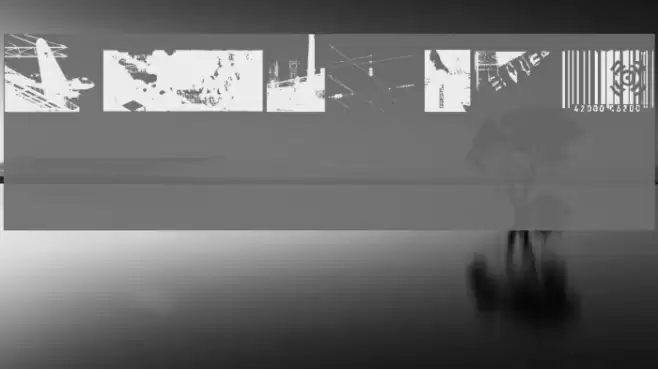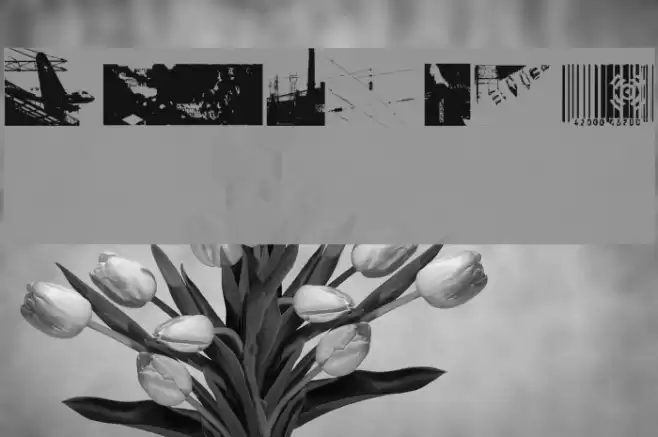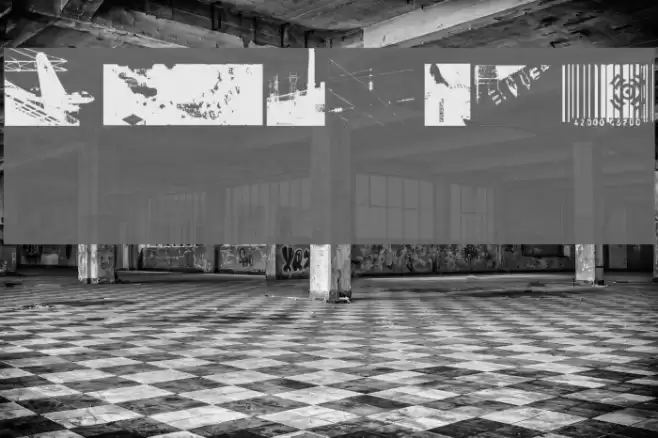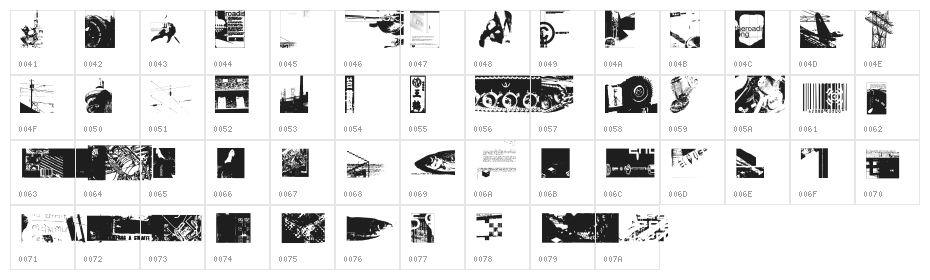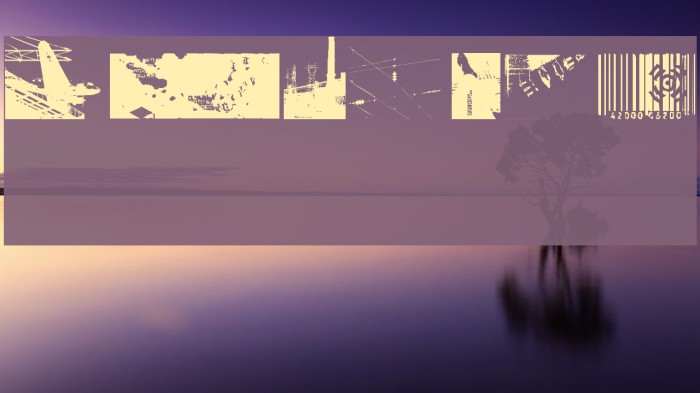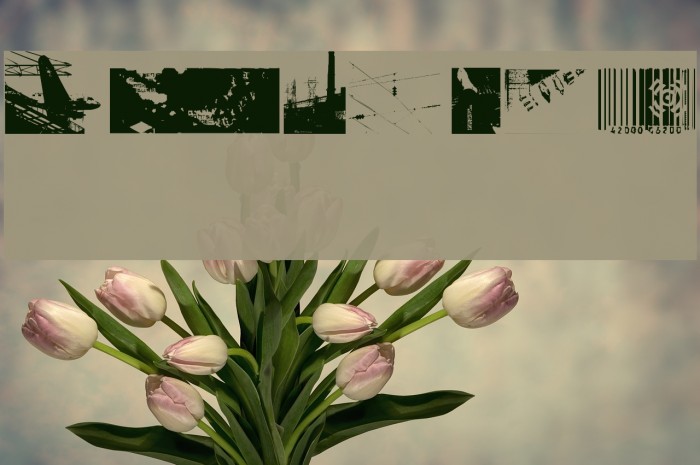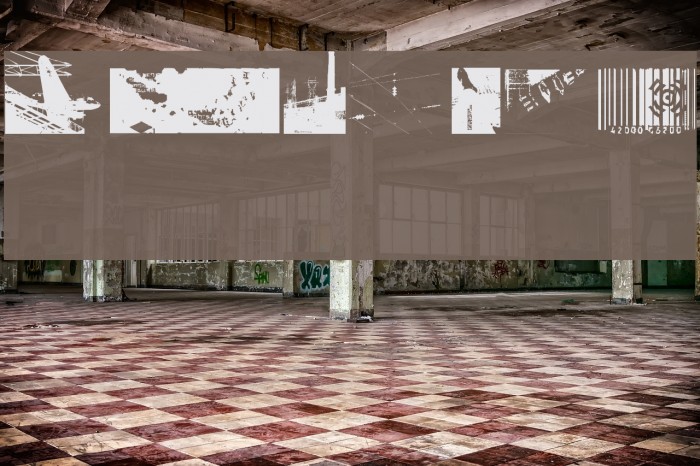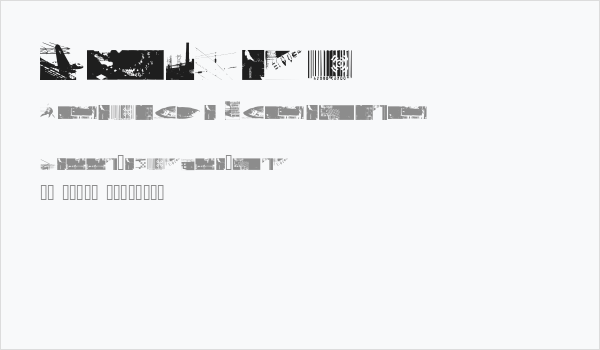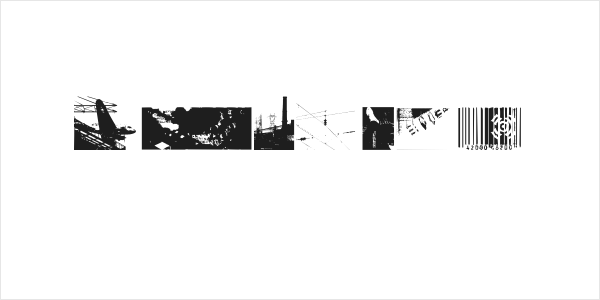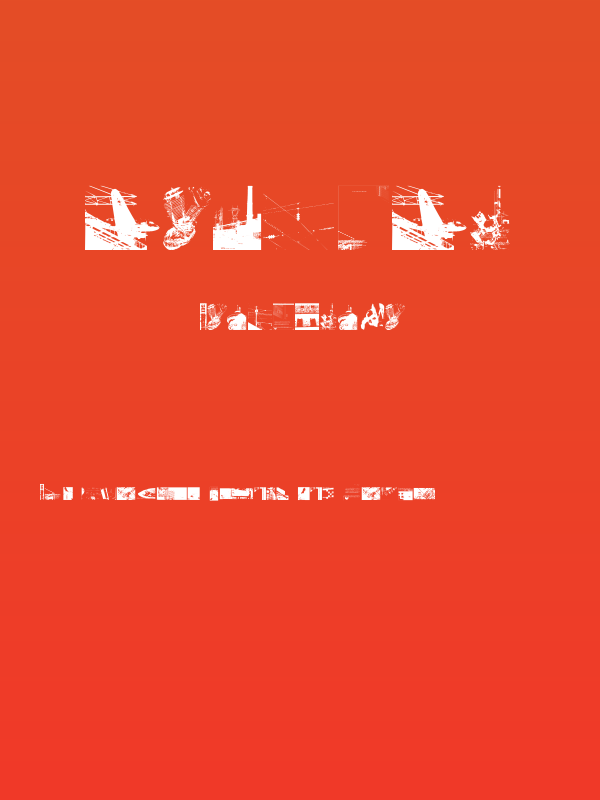
MySQema Font
MySQema Description
A highly decorative and experimental font where each character is filled with intricate, collage-like graphic elements, making letterforms almost abstract and challenging to read. The glyphs are rectangular and contain dense, high-contrast black and white imagery, giving a chaotic and artistic appearance.
An abstract, collage-style decorative font with high visual complexity from Uncategorized fonts.
- Proposed Projects: Album covers, avant-garde posters, experimental art projects, zines, and graphic installations.
- Overall Style: Decorative, Experimental, Abstract
- Use Case: Logos, Posters, Artistic headlines